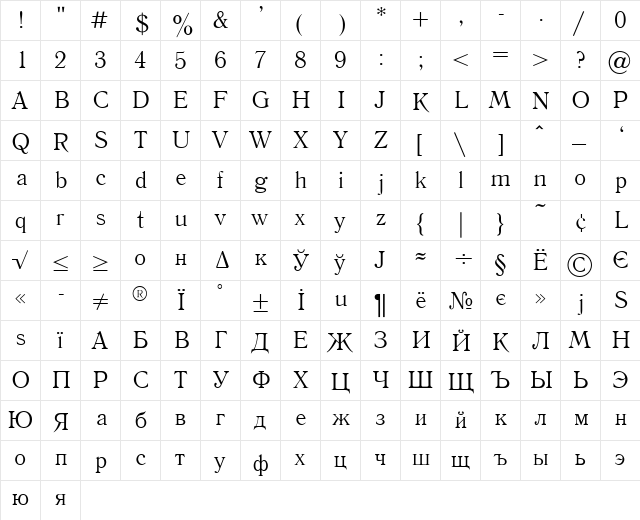
Literaturnaya Medium Font Preview
Literaturnaya Medium
Design Context for Literaturnaya Typeface
Literaturnaya offers clean, dependable letterforms without strong stylistic allegiance, making it a practical choice for designers who need flexibility.